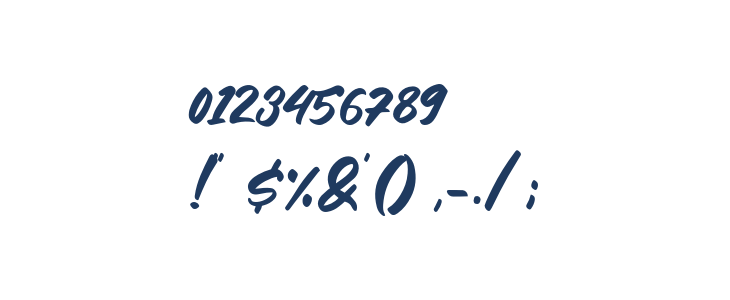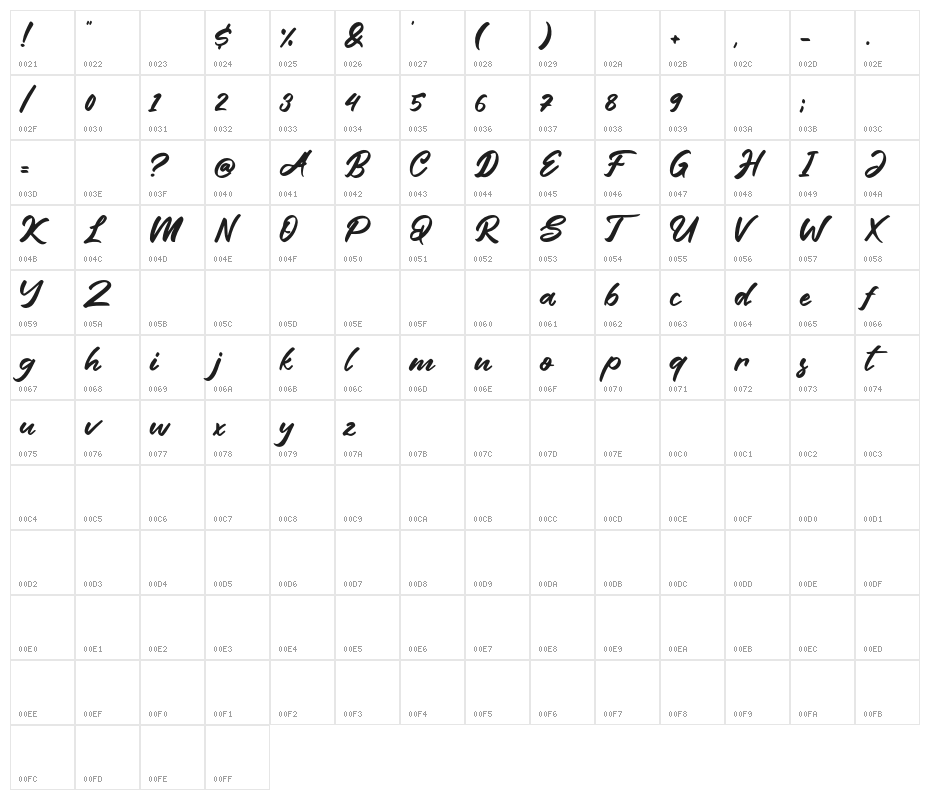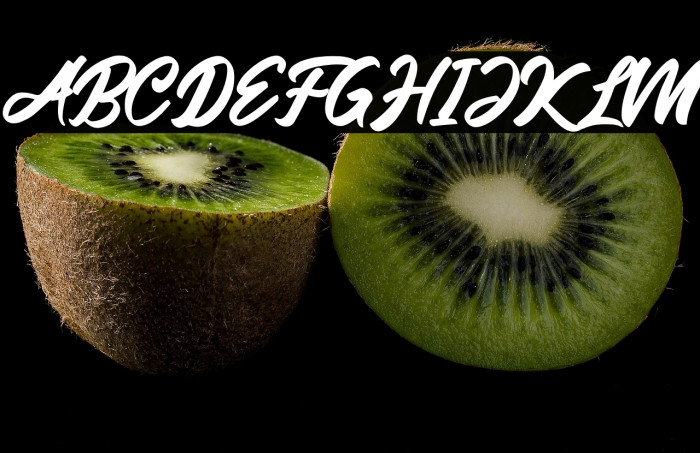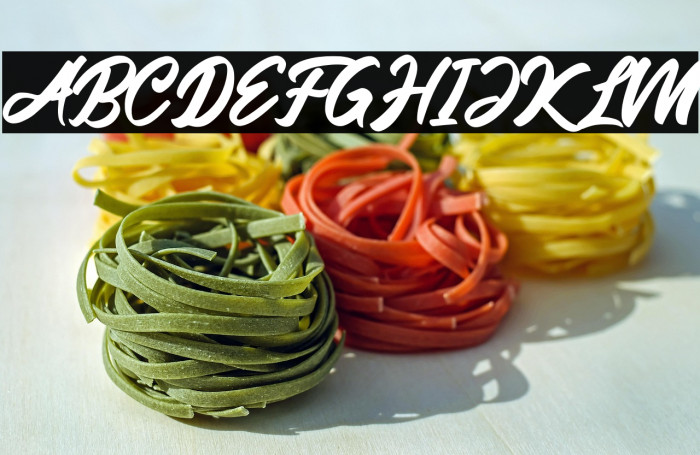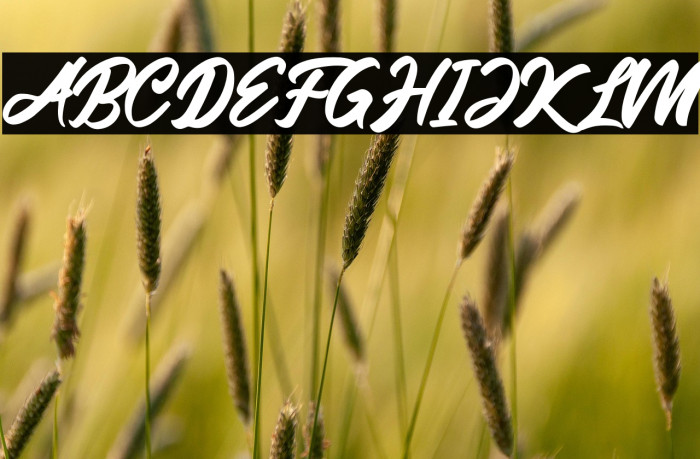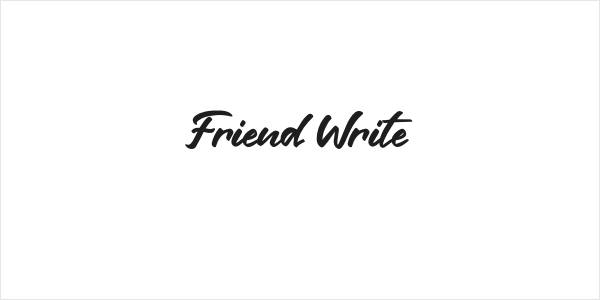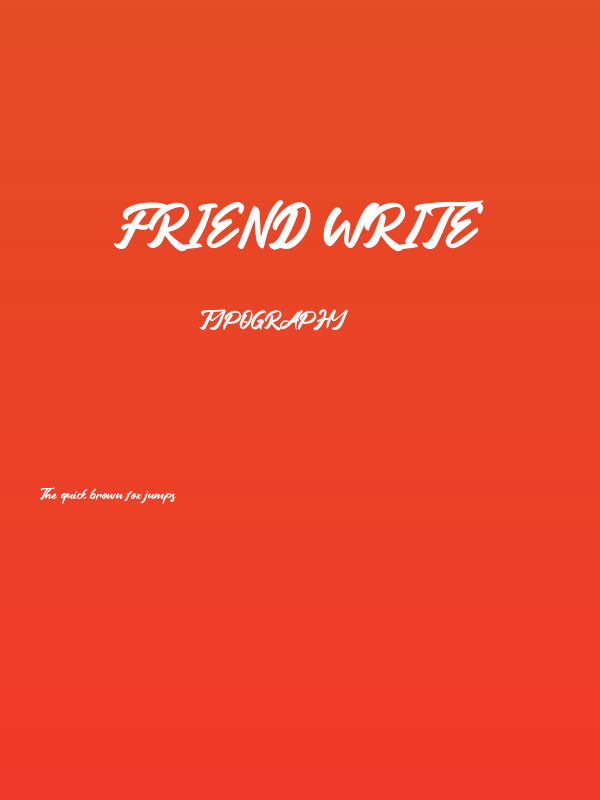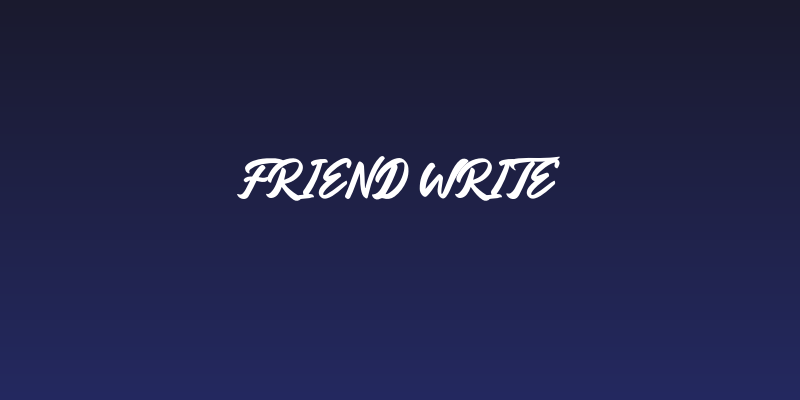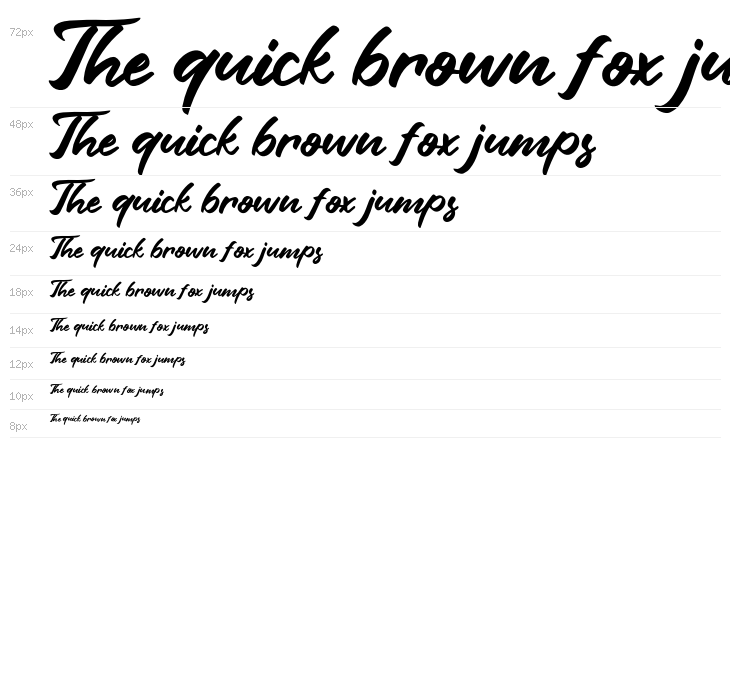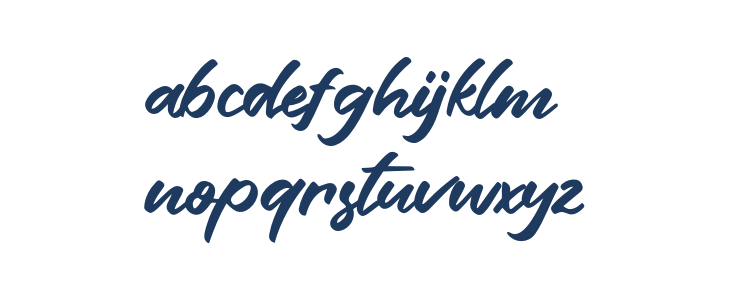
Friend Write Font
Friend Write Description
This font exudes a dynamic and energetic style, characterized by its bold, flowing script that mimics the fluidity of handwriting. The letters are connected in a cursive manner, giving it a personal and informal touch. The strokes are thick and consistent, providing a strong visual impact. The uppercase letters are slightly larger and more pronounced than the lowercase, maintaining readability while adding a touch of elegance. Numbers and special characters are crafted with the same attention to detail, ensuring a cohesive look throughout.
| Use Case | Logos, Headlines, Invitations |
| Proposed Projects | Ideal for personal invitations, greeting cards, branding projects, and social media graphics. |